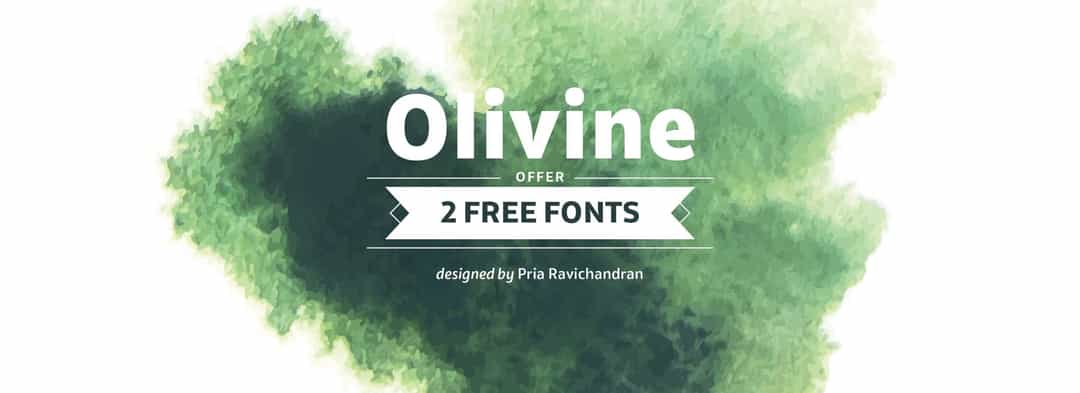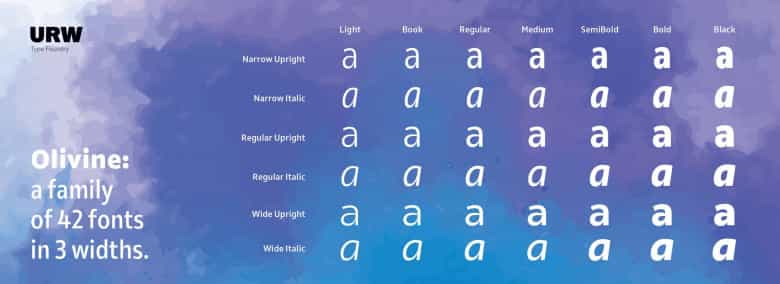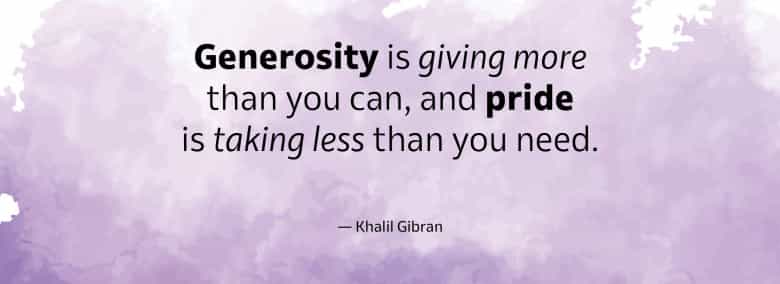
Olivine Sans Font is an eye-catching type family featuring various styles that excels across all sizes. Care was taken when designing it to ensure legibility across a variety of sizes, angles and distances; with robust shapes and overexaggerated traps of ink fade creating an appealing aesthetic even when writing smaller font sizes.